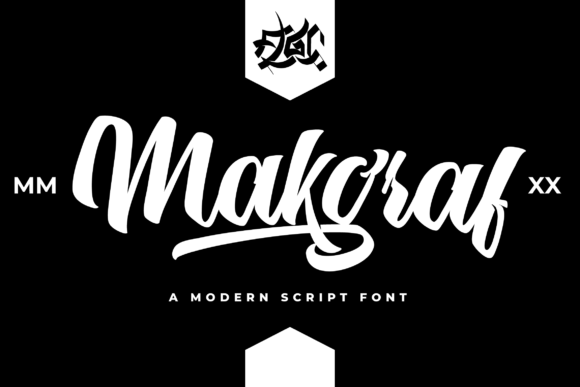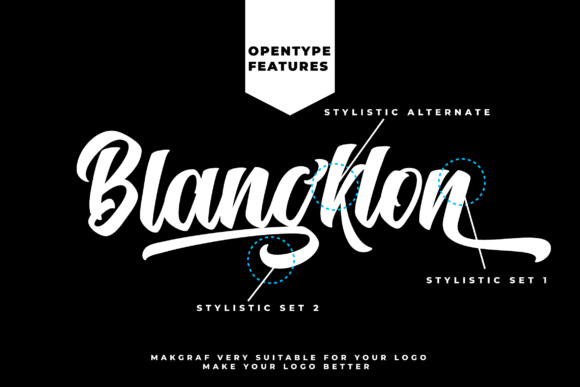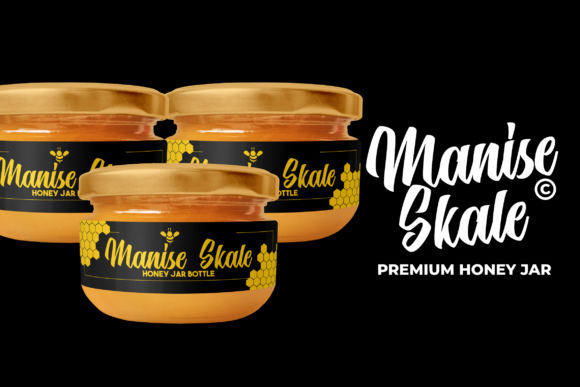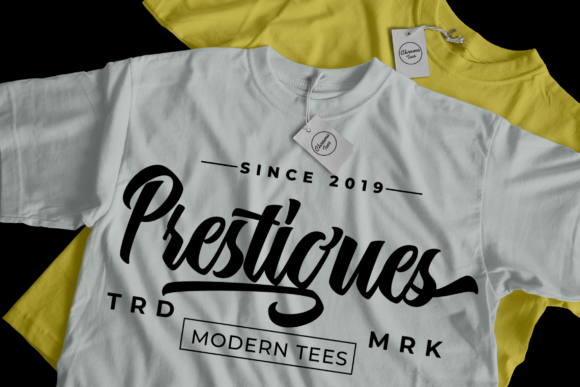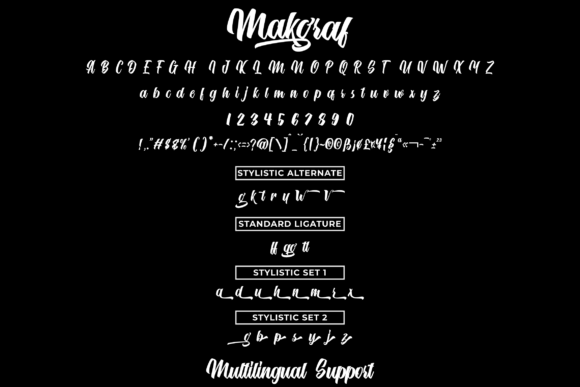
Makgraf Font
About Makgraf Font
Makgraf script font is an amazing handwritten font perfectly suited for a wide variety of projects! The font will make your design more beautiful and powerful!